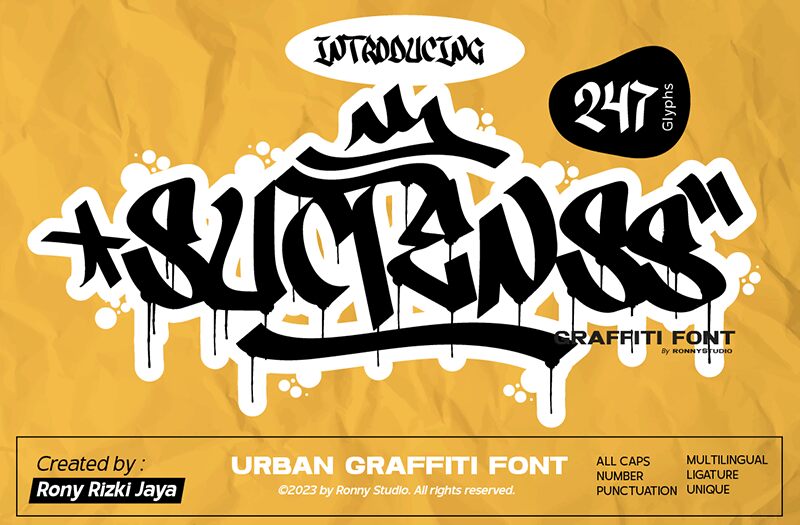
Suctenss font, crafted by Ronny Studio, is a striking embodiment of graffiti artistry that bursts with energy and vibrancy. Its playful letterforms evoke an urban spirit, capturing the essence of street culture. With exaggerated curves and dynamic shapes, this font commands attention while maintaining a sense of individual flair.
The bold strokes and fluid movements offer a captivating visual appeal that can enliven various projects. Ideal for branding, music events, or any creative endeavor seeking to make a statement, Suctenss stands out in posters and merchandise alike. Its unique aesthetic brings life to headlines and graphic designs, inviting audiences into a world rich with creativity and expression. Whether used for digital media or print, Suctenss guarantees to leave an indelible mark.